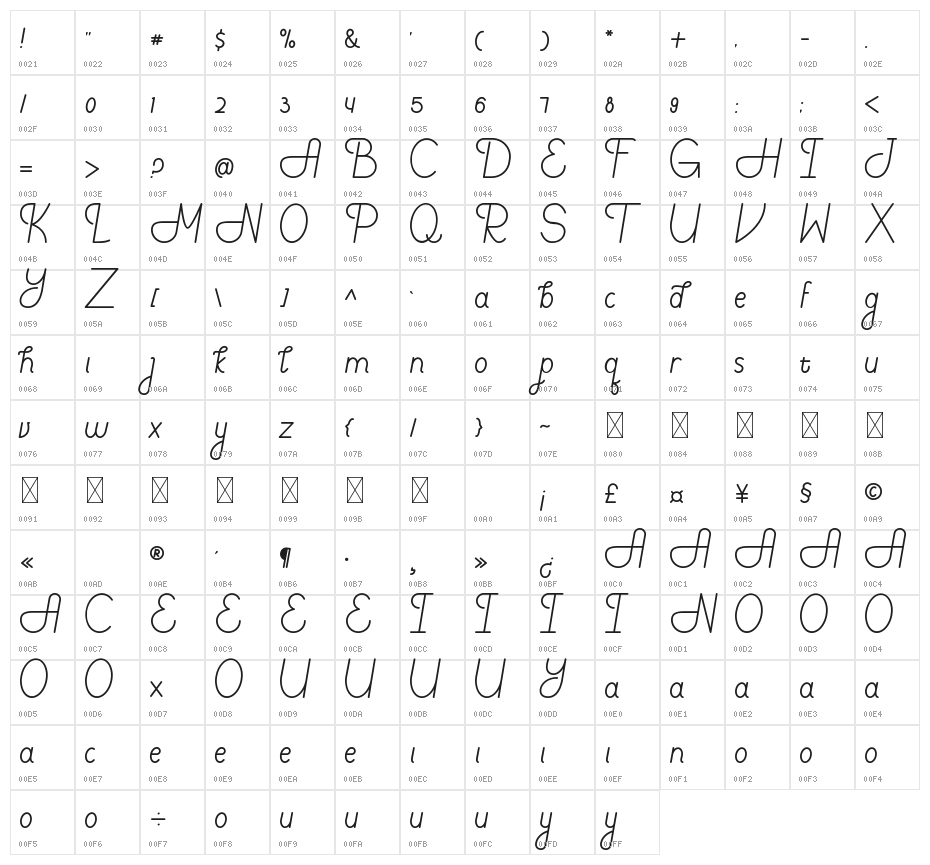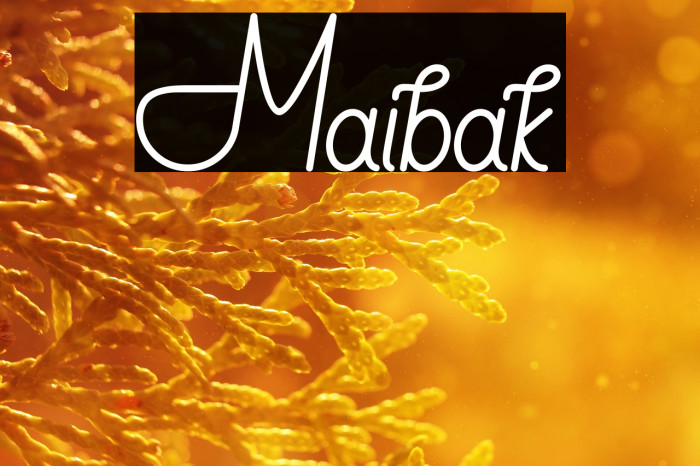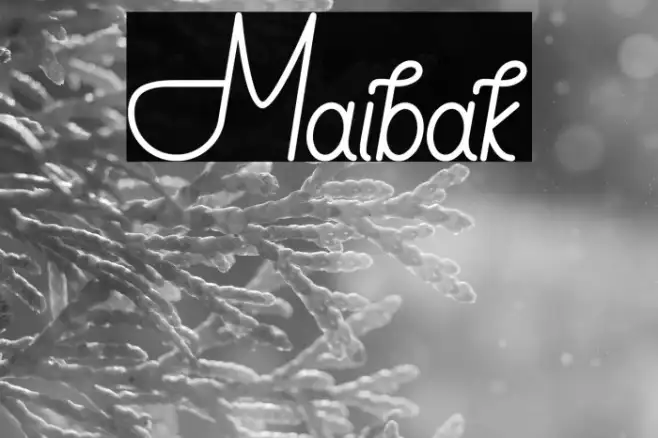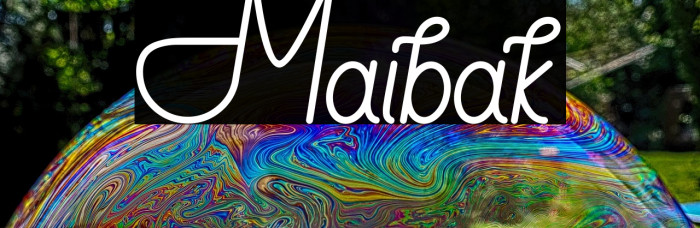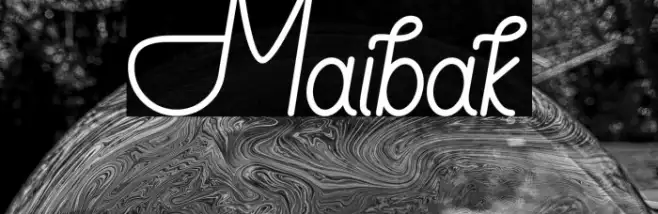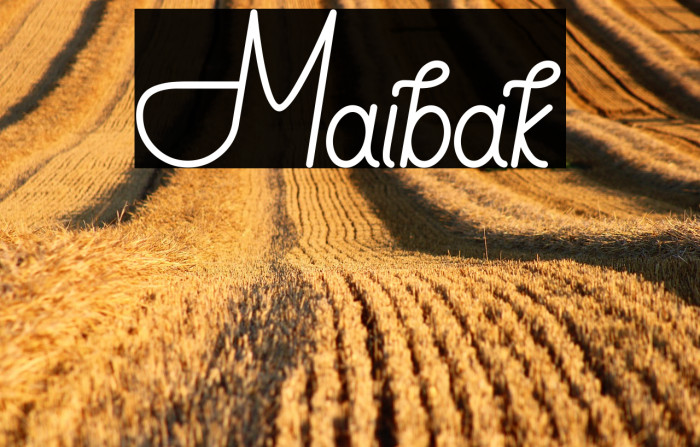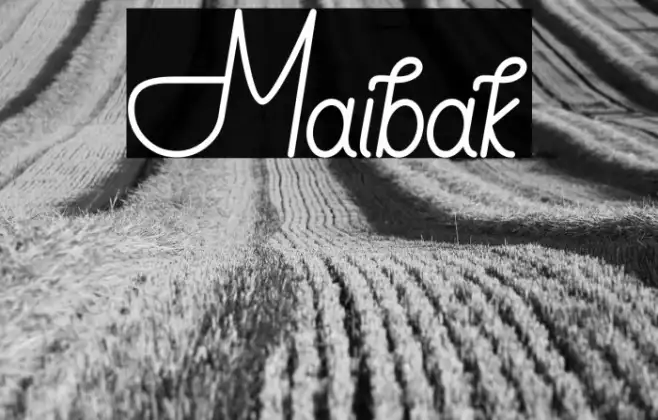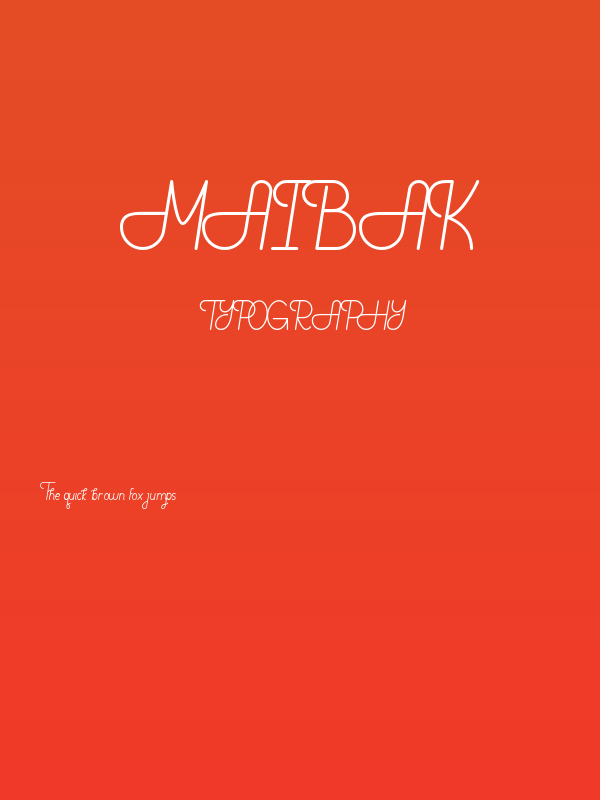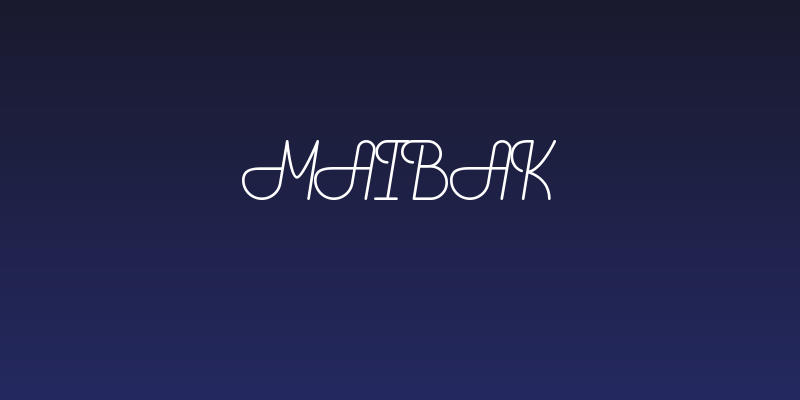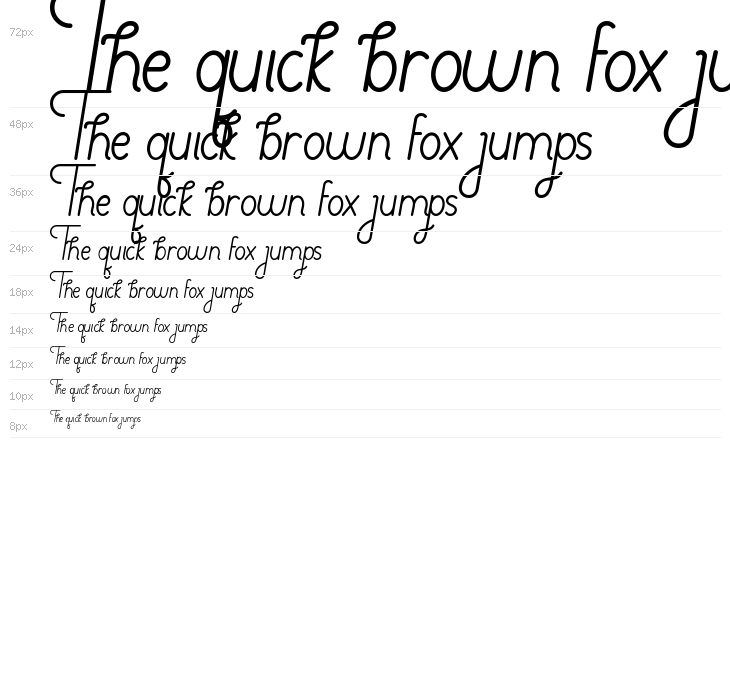
Maibak Font
Maibak Description
This font features a unique blend of elegance and modernity, characterized by its flowing, cursive-like strokes that maintain a clean and readable appearance. The uppercase letters exhibit a sophisticated looped design, while the lowercase letters are more compact and rounded, offering a harmonious balance. The numerals are consistent with the overall style, maintaining clarity and elegance. Special characters are well-integrated, enhancing the font's versatility. The font's overall aesthetic is both stylish and approachable, making it suitable for a variety of design applications.
| Use Case | Logos, Invitations, Editorial design |
| Proposed Projects | Ideal for wedding invitations, branding, elegant logos, and editorial design. |